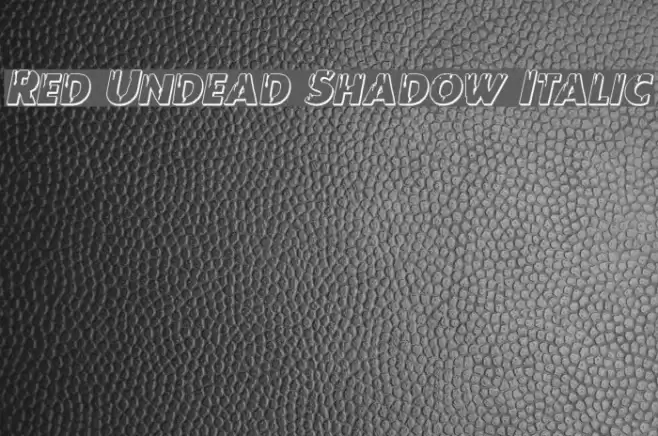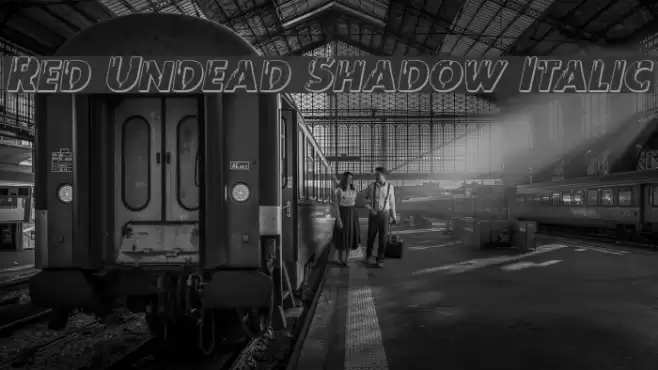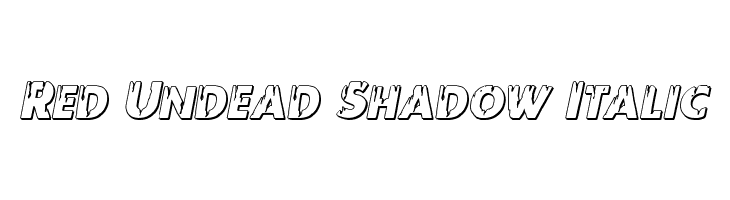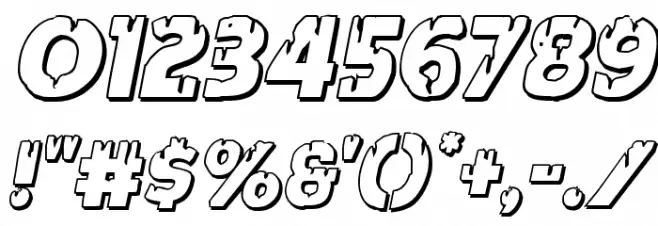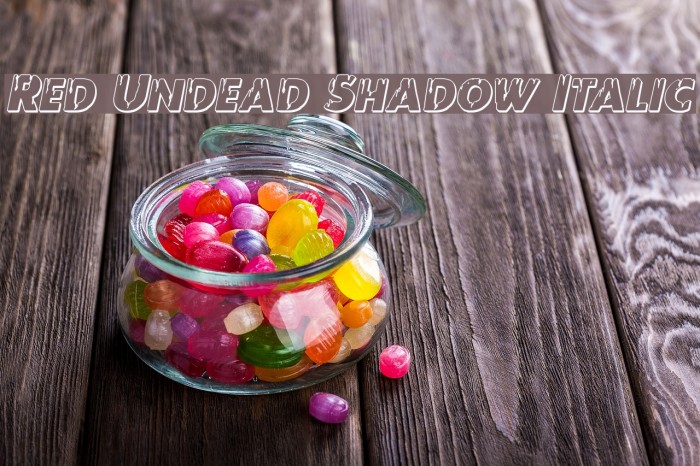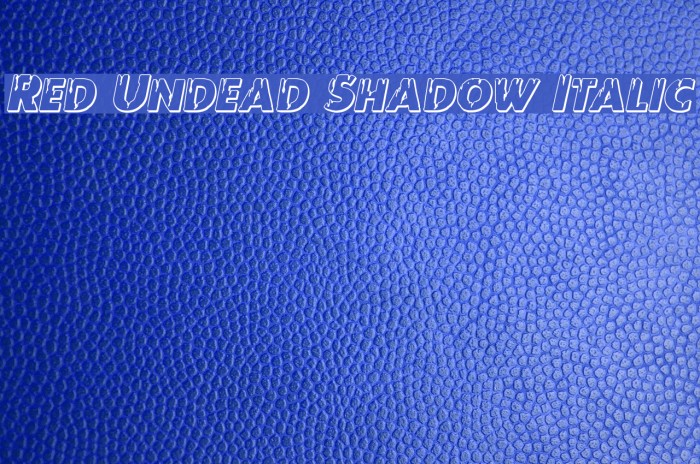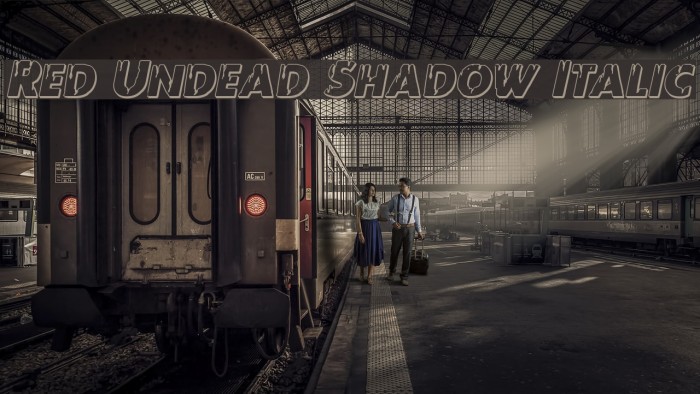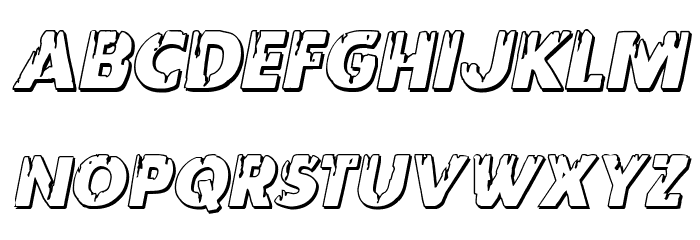
Red Undead Shadow Italic Font
Red Undead Shadow Italic Description
This font features a bold, shadowed style with a distinct italic slant, giving it a dynamic and edgy appearance. The characters are outlined, creating a hollow effect that enhances the shadow and adds depth. The uppercase and lowercase letters maintain a consistent style, with sharp angles and a slightly distressed look, adding to its unique character. The numerals and special characters follow the same design, ensuring uniformity across all glyphs. This font is ideal for projects that require a striking and unconventional typeface.
Bold, italic, shadowed font with a dynamic and edgy style from Horror fonts.
- Proposed Projects: Perfect for horror-themed posters, video game titles, edgy branding, and Halloween event promotions.